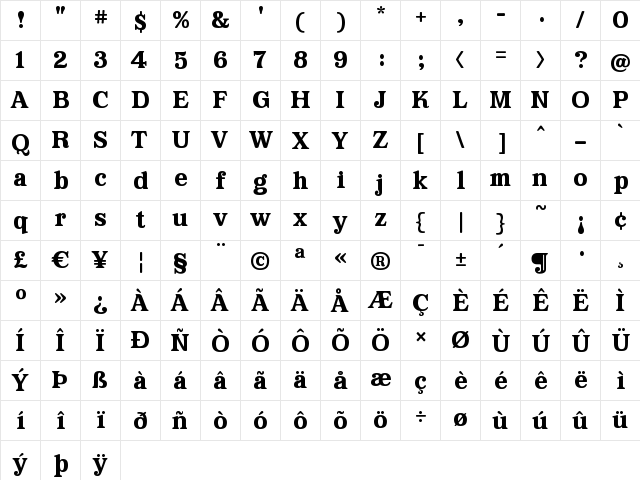
Everafter Bold
| Foundry | Dilworth Typographics Inc |
| Designer | Silas Dilworth |
Design Context for Everafter Typeface
Everafter takes a measured approach to typography — its balanced proportions and neutral character make it a reliable workhorse for both digital and print work. Its bold stroke weight gives it real presence on the page.